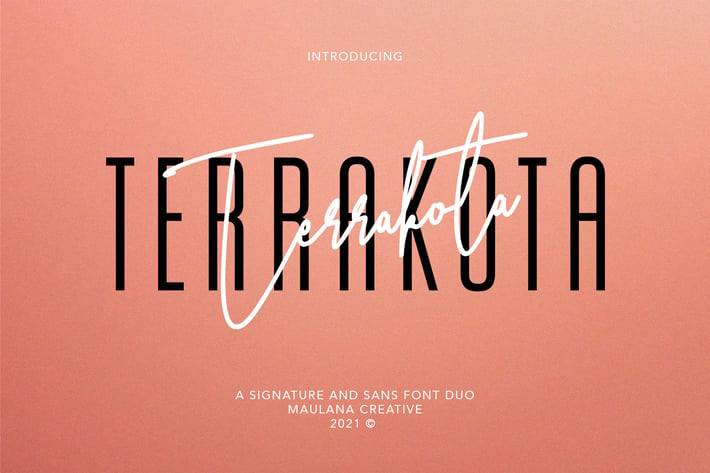
Terrakota Signature Sans Font Duo
Terrakota is casual signature and Sans font duo, with clean thin mono-line stroke, slanted, condensed and fun character. It has Opentype features ligatures of character and lowercase alternates, To give you an extra creative work. Terrakota font duo support multilingual more than 100+ language. This font is good for logo design, Social media, Movie Titles, Books Titles, a short text even a long text letter and good for your secondary text font with sans or serif. Make a stunning work with Terrakota font duo.